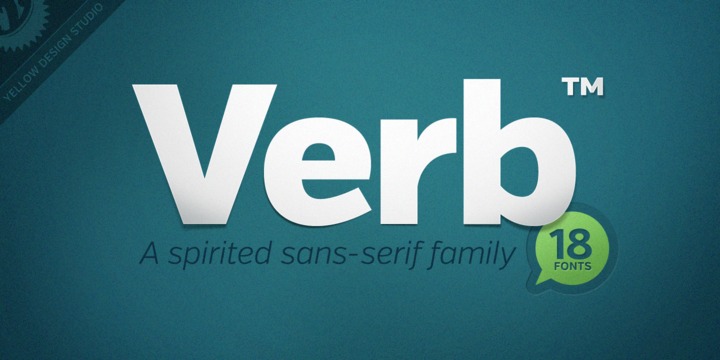
Yellow design
Yellow design font is a beautiful 18-font sans-serif family. It is friendly and highly approachable. The amazing roundness of the typeface ensures energy and confidence for the user. It is very lively, stimulated and productive. The font is also loaded with incredible features including mall caps, true italics, ligatures, oldstyle and tabular numerals. Download yellow-design … Read more